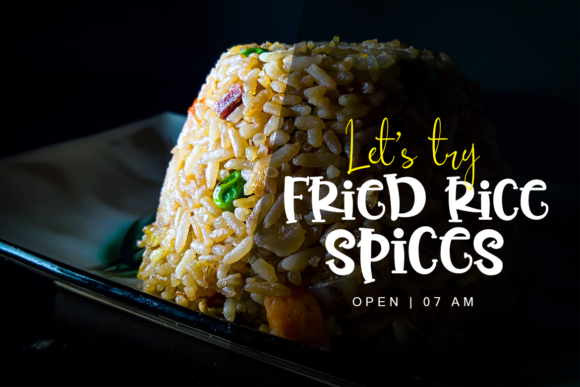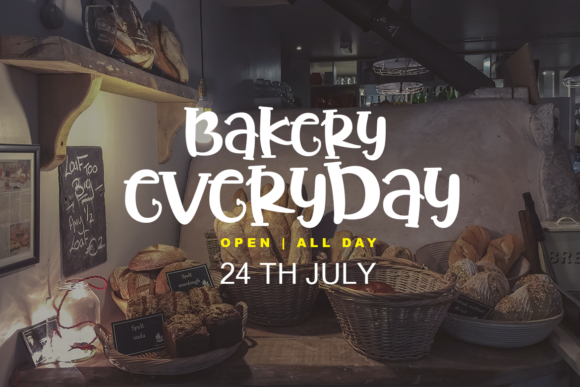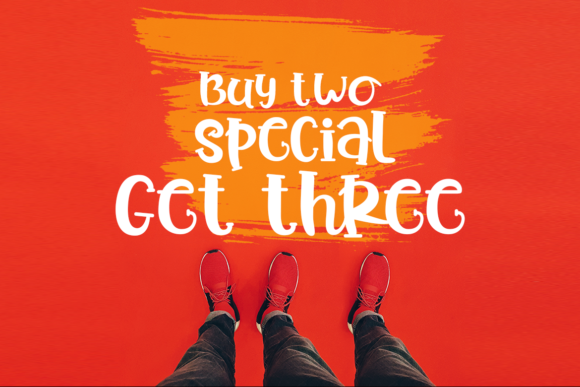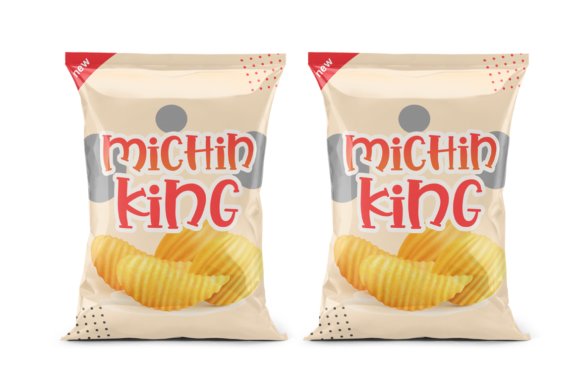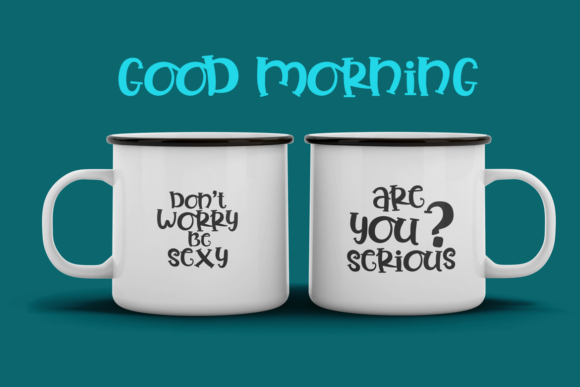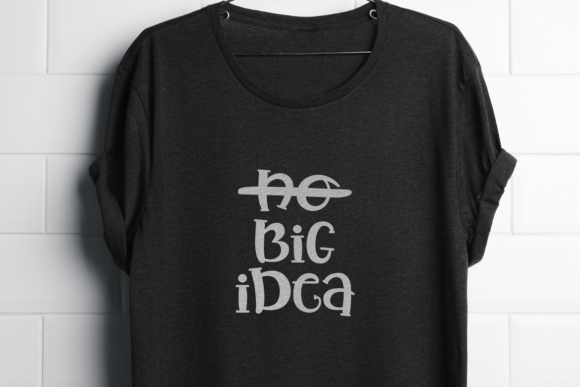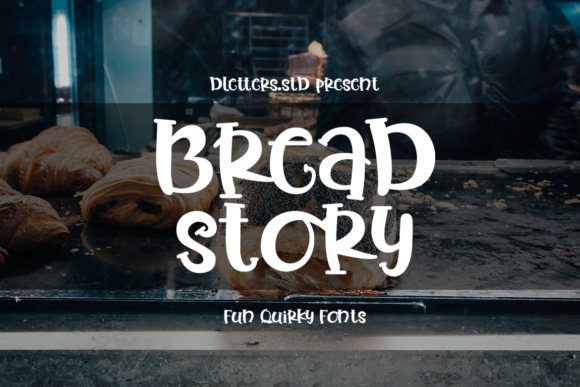
Bread Story Font: The Perfect Addition to Your Design Collection
Are you tired of using the same old fonts in your designs? Look no further than the Bread Story Font, a charming and quirky serif font that’s sure to add a touch of joy to your creations. With its playful style and adorable aesthetic, Bread Story is the perfect choice for designers and crafters looking to add some whimsy to their work.
What is Bread Story Font?
Bread Story Font is a unique and eye-catching serif font that’s designed to bring a smile to your face. Its quirky and charming design makes it perfect for a wide range of design projects, from stationary art to social media posts. Whether you’re a professional designer or a crafty DIY enthusiast, Bread Story Font is sure to inspire your creativity and add a touch of personality to your work.
Key Features of Bread Story Font
- Adorable and Quirky Design: Bread Story Font features a playful and charming design that’s sure to capture the attention of your audience.
- Serif Font: With its classic serif design, Bread Story Font adds a touch of sophistication and elegance to your designs.
- Highly Versatile: Bread Story Font can be used for a wide range of design projects, from stationary art to social media posts, and much more.
- Easy to Read: Despite its playful design, Bread Story Font is highly legible and easy to read, making it perfect for use in body text.
Uses for Bread Story Font
Bread Story Font is a highly versatile font that can be used for a wide range of design projects. Here are just a few ideas to get you started:
- Stationary Art: Use Bread Story Font to create beautiful and unique stationary art, including greeting cards, invitations, and more.
- Social Media Posts: Add a touch of personality to your social media posts with Bread Story Font, perfect for creating eye-catching graphics and engaging content.
- Branding and Packaging: Use Bread Story Font to create a unique and memorable brand identity, perfect for food bloggers, bakeries, and other businesses.
- Crafting and DIY Projects: Bread Story Font is perfect for crafty DIY enthusiasts, and can be used to create a wide range of handmade projects, from scrapbooking to crafting.
Why Choose Bread Story Font?
With so many fonts to choose from, why should you choose Bread Story Font? Here are just a few reasons why:
- Unique and Eye-Catching: Bread Story Font is a truly unique and eye-catching font that’s sure to capture the attention of your audience.
- Highly Versatile: Bread Story Font can be used for a wide range of design projects, making it a great addition to your font collection.
In conclusion, Bread Story Font is a charming and quirky serif font that’s sure to add a touch of joy to your designs. With its playful style and adorable aesthetic, it’s the perfect choice for designers and crafters looking to add some whimsy to their work. Whether you’re creating stationary art, social media posts, or branding and packaging, Bread Story Font is the perfect addition to your design collection.